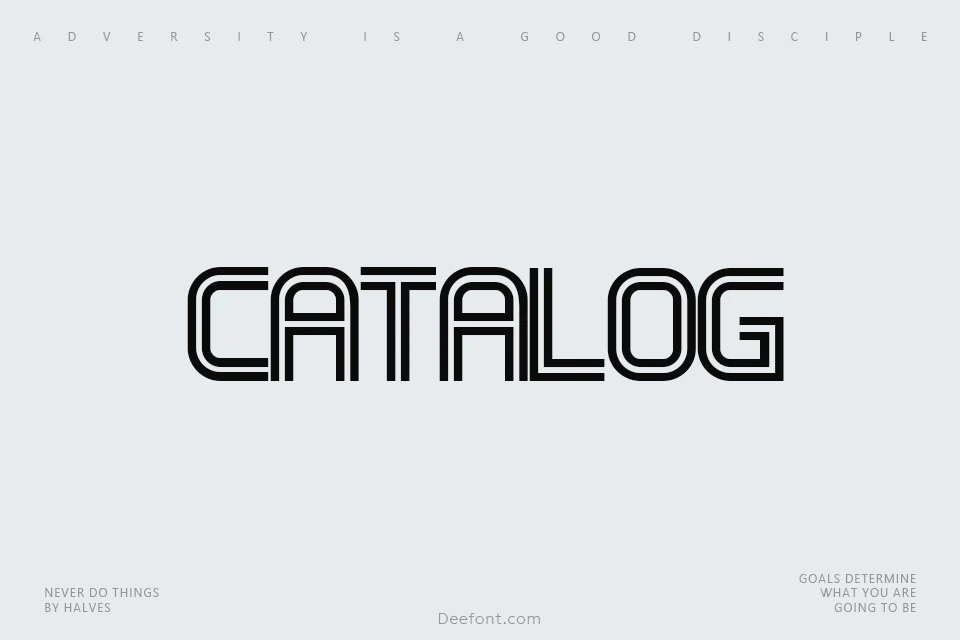
Catalog Font
Catalog Font is a modern multilined typeface that will look gorgeous on any of Your projects.
Use this font for posters, flyers and much more.